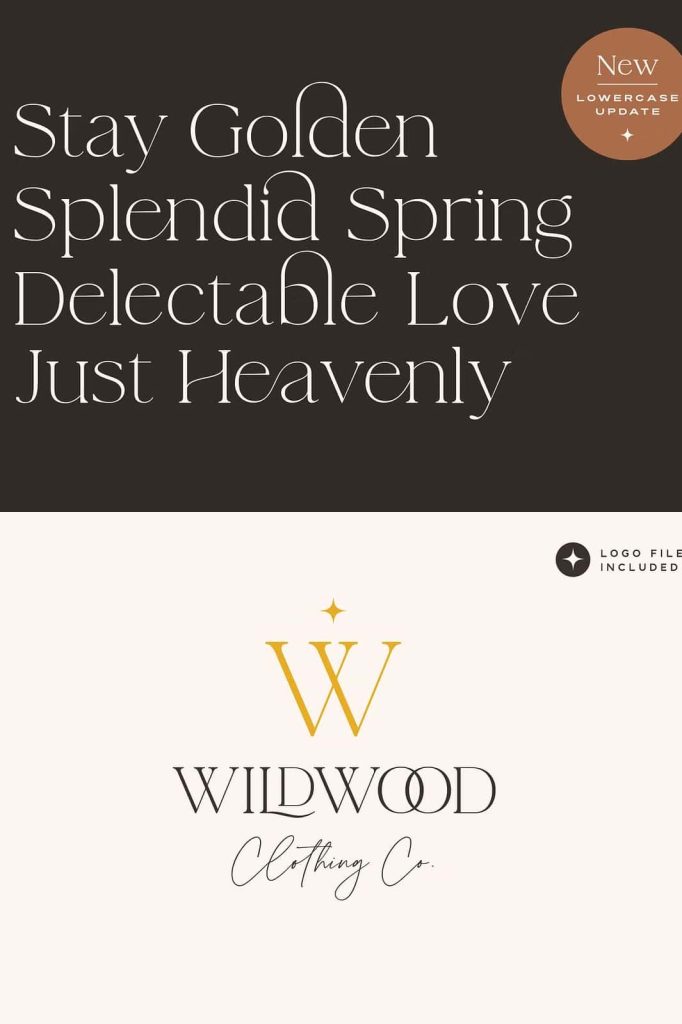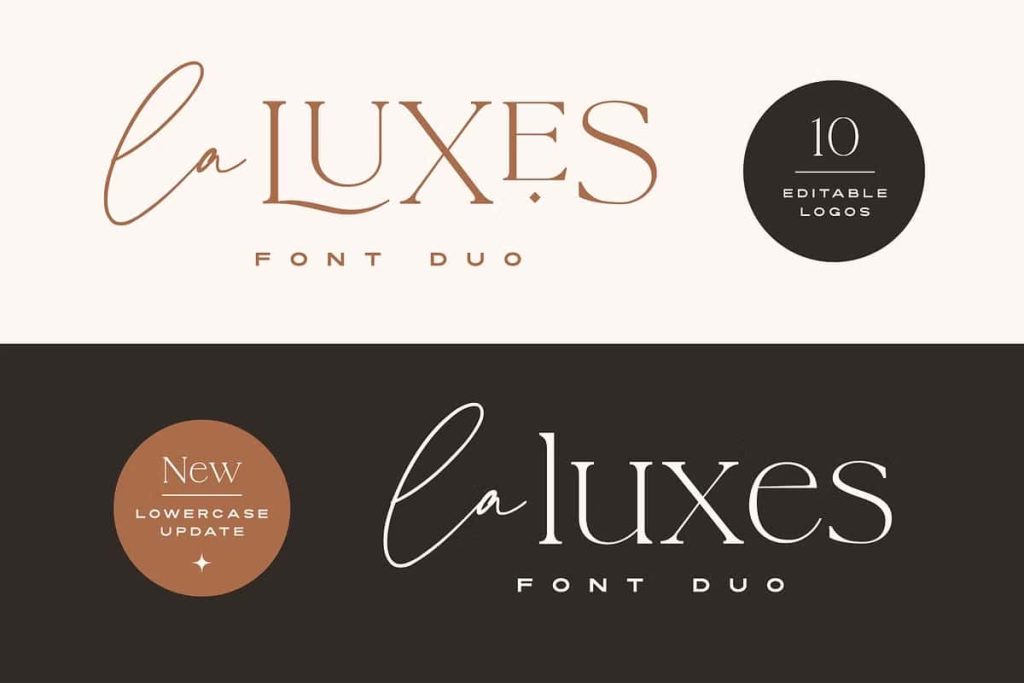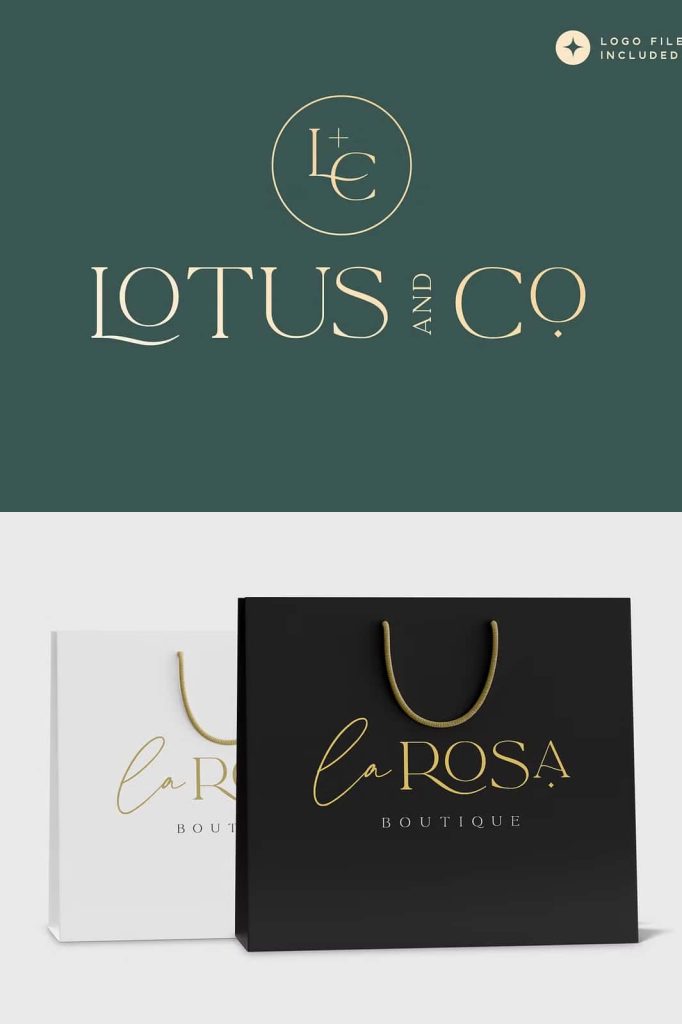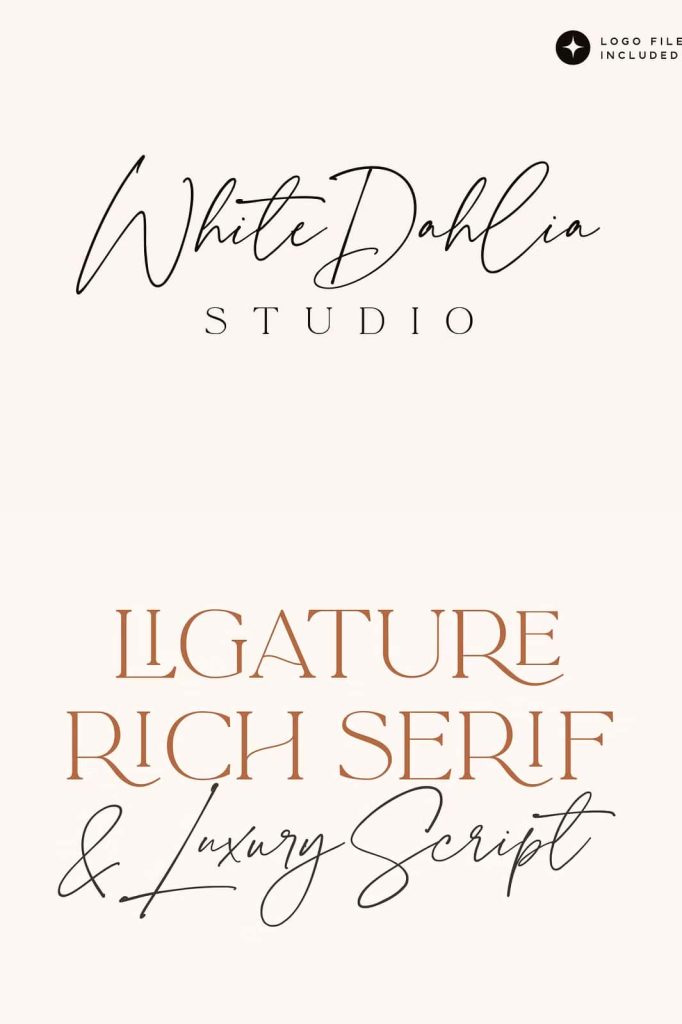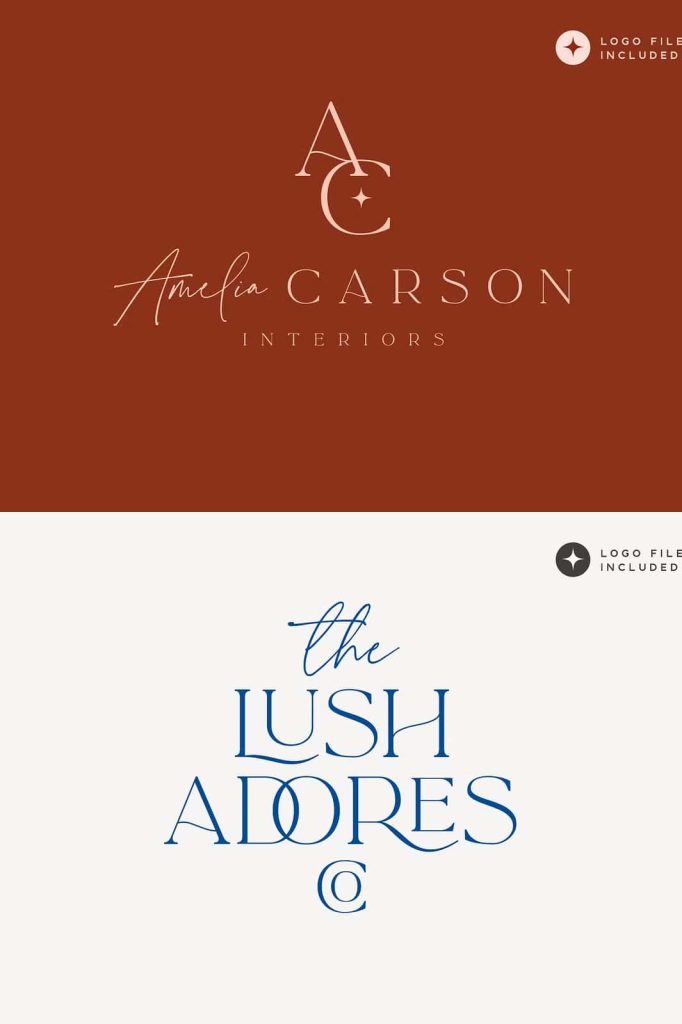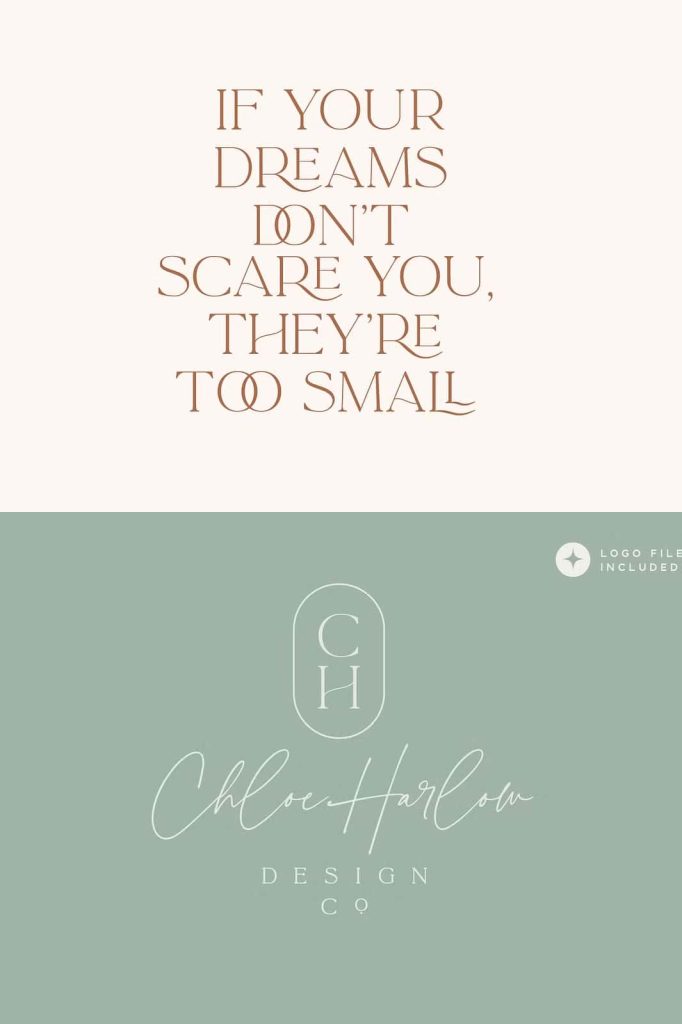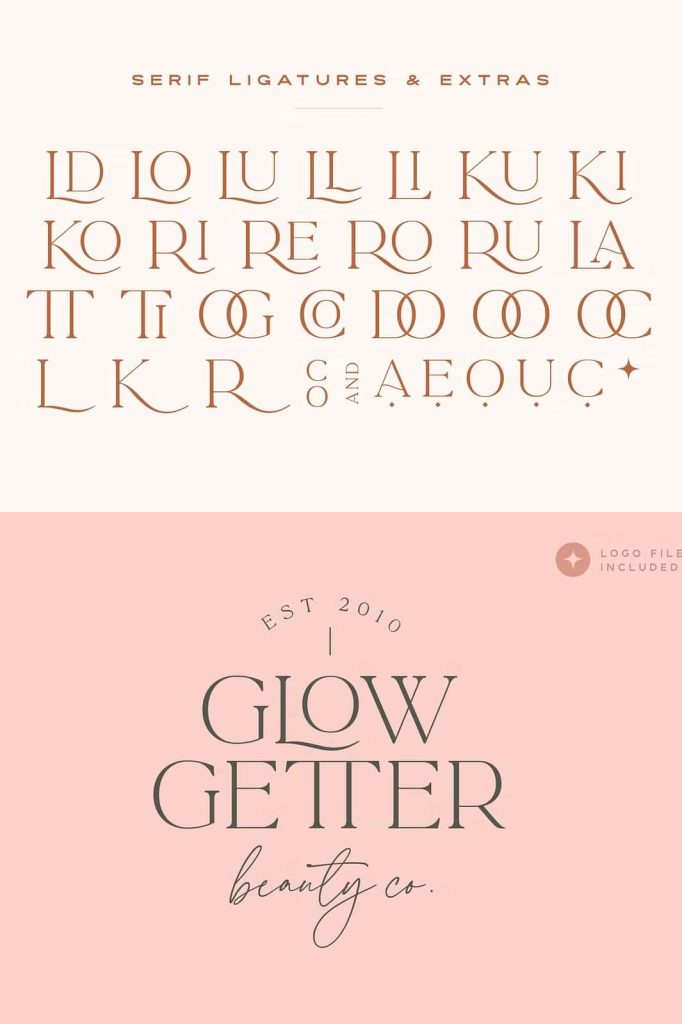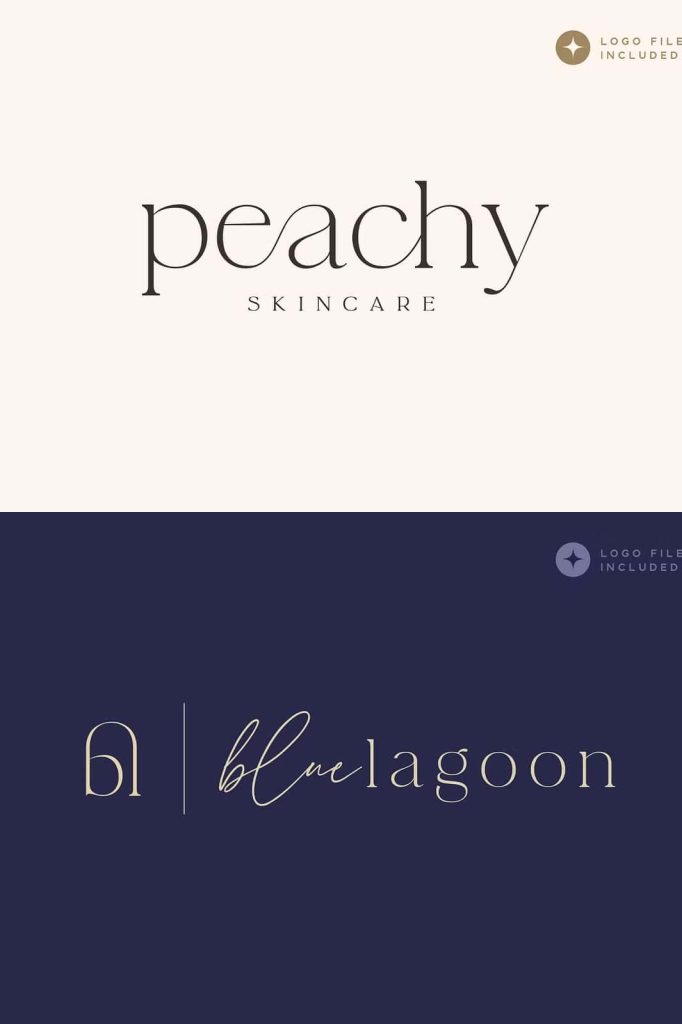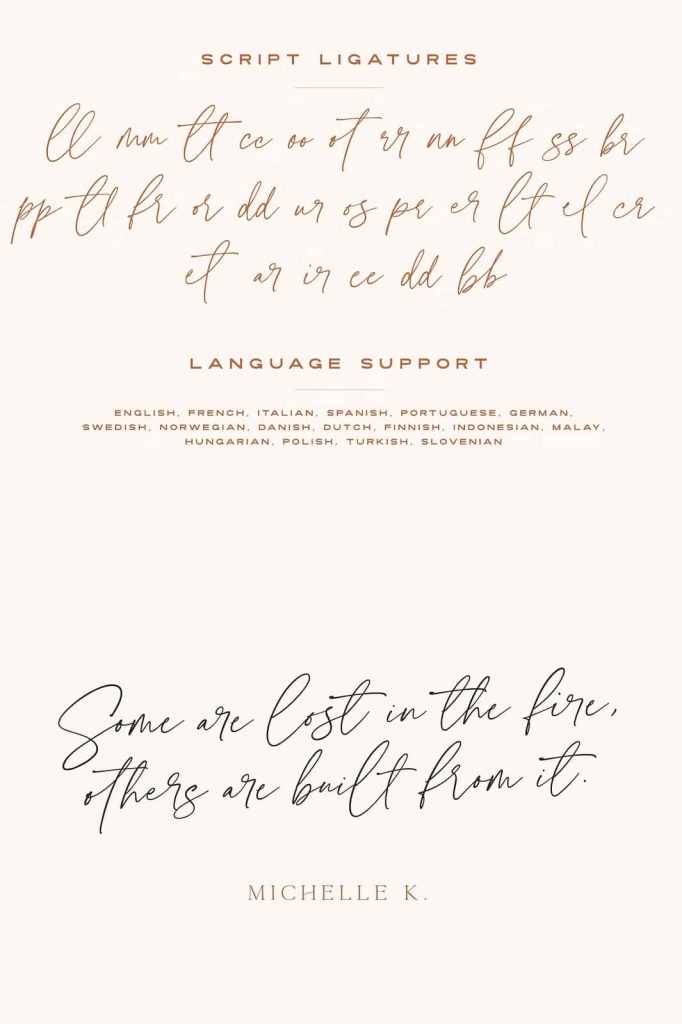
La Luxes Font Duo: Elegant Script & Ligature-Rich Serif
La Luxes is a sophisticated and timeless font duo crafted to elevate your design projects with a refined and professional touch. This carefully designed combination features an elegant script font paired seamlessly with a ligature-rich serif typeface, giving you the flexibility to create visually striking compositions with ease. Whether you are working on branding, logo design, packaging, or editorial layouts, La Luxes empowers you to achieve a polished and high-end aesthetic.
A Perfect Balance of Style and Function
The script font in La Luxes flows gracefully with smooth curves and natural strokes, capturing a sense of luxury and personalization. It works beautifully for signatures, headlines, invitations, and any design that calls for a handcrafted feel. In contrast, the serif font provides structure and readability, enriched with stylish ligatures that add character without compromising clarity. Together, these two fonts create a harmonious balance that designers can rely on for both creative and professional projects.
Designed for Versatile Applications
La Luxes adapts effortlessly to a wide range of uses. You can apply it to branding identities, fashion labels, wedding invitations, social media graphics, product packaging, and website designs. The combination of script and serif allows you to experiment with contrast, hierarchy, and visual storytelling. By mixing these styles, you can emphasize key elements while maintaining a cohesive and elegant look throughout your work.
Enhance Your Branding with Bonus Logo Templates
This font duo package goes beyond typography by including 10 professionally designed logo templates. These templates help you speed up your workflow and eliminate the guesswork in creating compelling brand visuals. Each template is fully editable, allowing you to customize text, adjust layouts, and tailor designs to suit your brand identity.
With these ready-to-use templates, you can quickly transform ideas into polished logos without starting from scratch. This feature is especially valuable for designers, entrepreneurs, and small business owners who want to achieve high-quality results in less time.
Easy Customization and Quick Results
La Luxes is built with usability in mind. The fonts integrate smoothly with popular design software, making it simple to access ligatures, alternates, and stylistic features. You can easily experiment with different combinations to create unique compositions that stand out. The included logo templates further simplify the design process, enabling you to produce professional branding materials within minutes.
Create Stunning Visual Experiences
By choosing La Luxes, you gain more than just fonts—you gain a complete design solution. The elegant script adds personality and charm, while the serif font ensures readability and sophistication. Together, they provide a powerful toolkit for creating memorable designs that capture attention and communicate your message effectively.
If you are looking to enhance your creative projects with a touch of luxury and efficiency, La Luxes delivers both style and practicality. Its versatility, combined with bonus templates, makes it an essential addition to any designer’s collection.